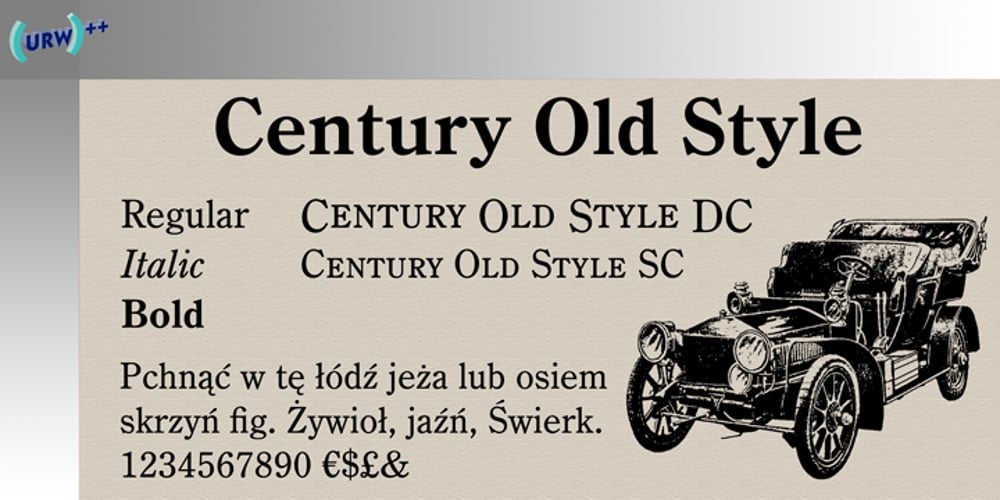
Century Old Style Font Family was designed by Morris Fuller Benton and published by URW Type Foundry. Century Old Style contains 5 styles and family package options. The Century Old Style font family was modeled on Century Expanded which had been cut in 1900. Similar weights and proportions were maintained but the letter shapes were made more elegant by the introduction of a number of old style characteristics. The Century Old Style font family is a useful text design that offers good legibility and economy.